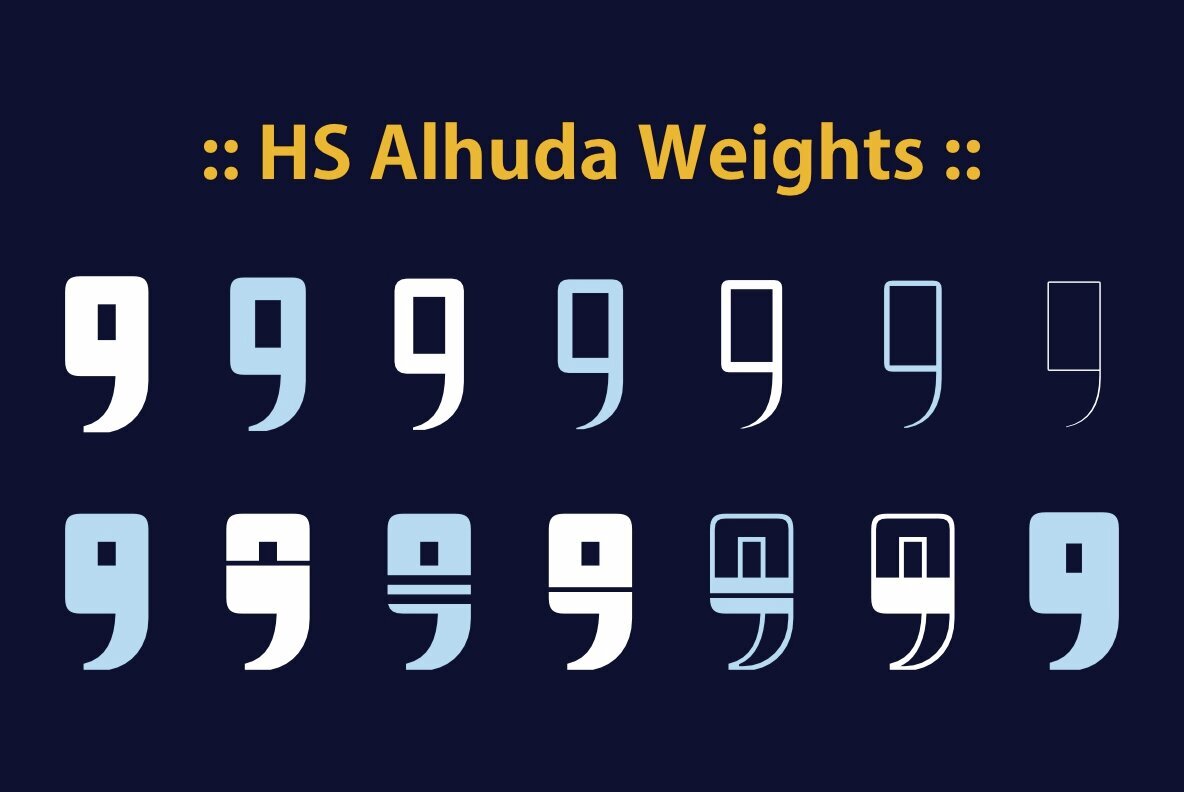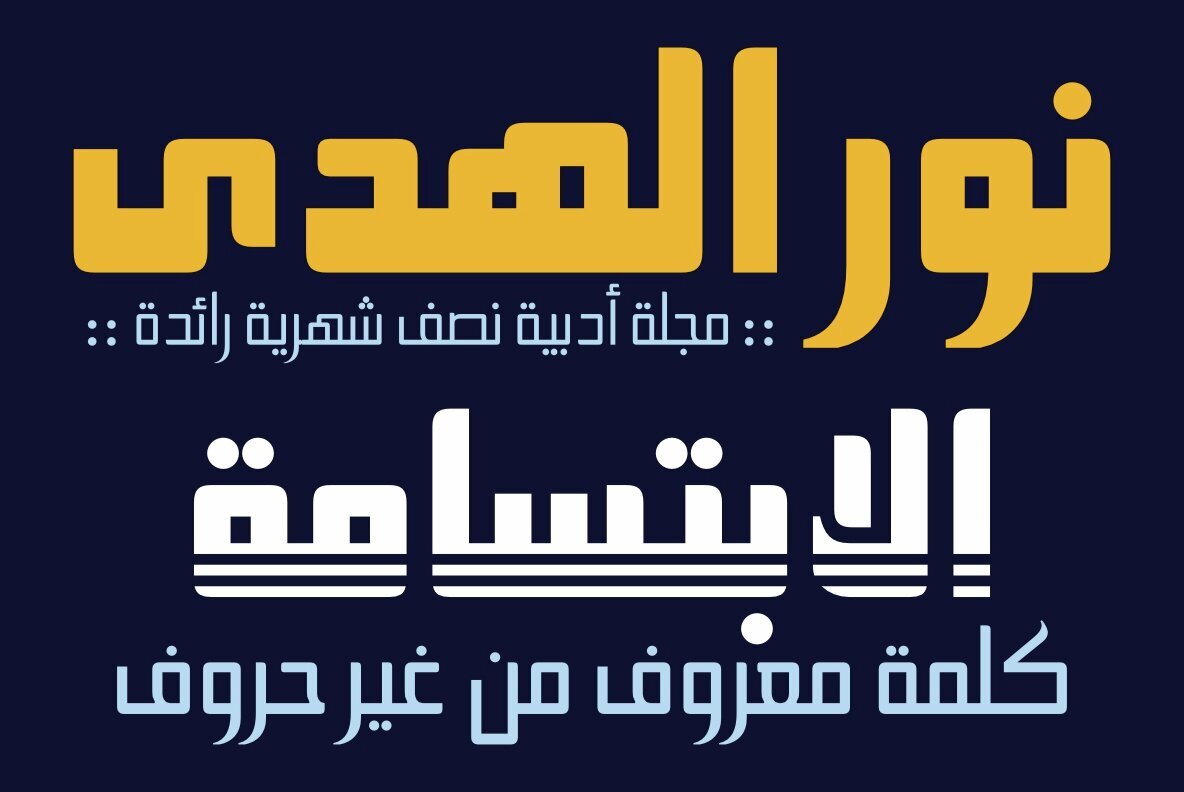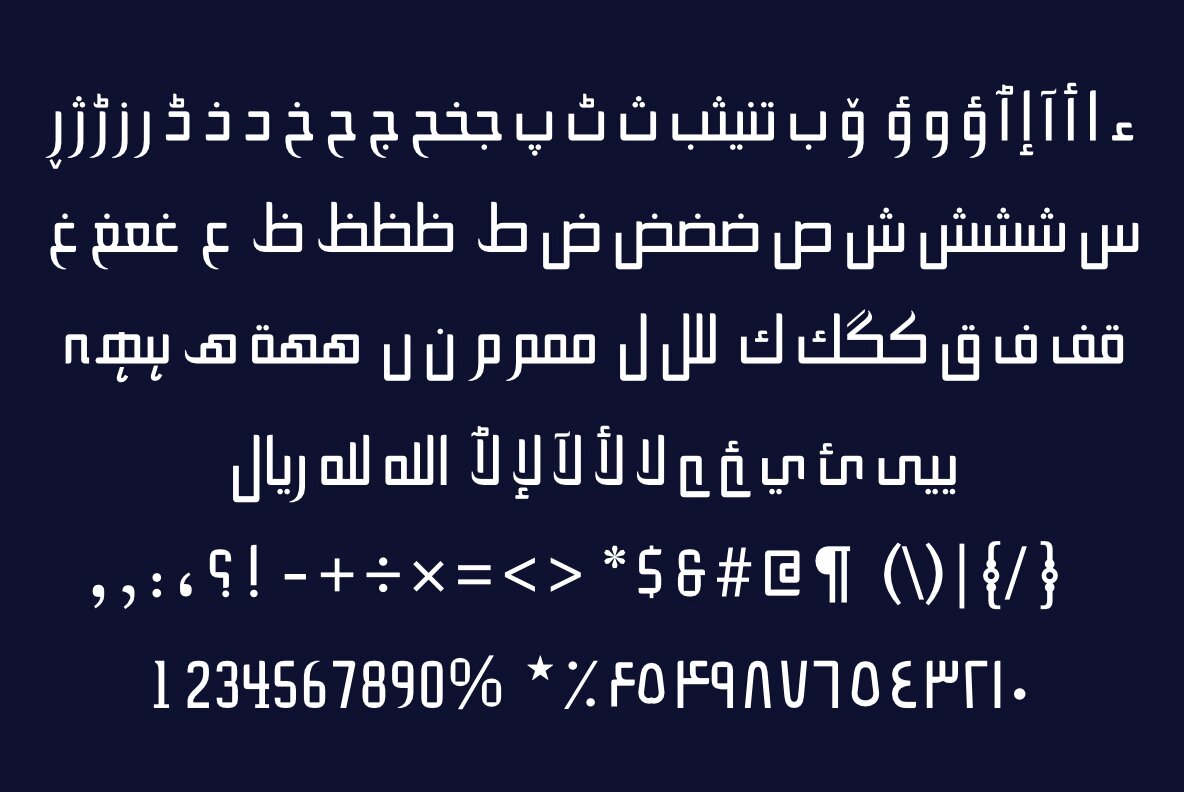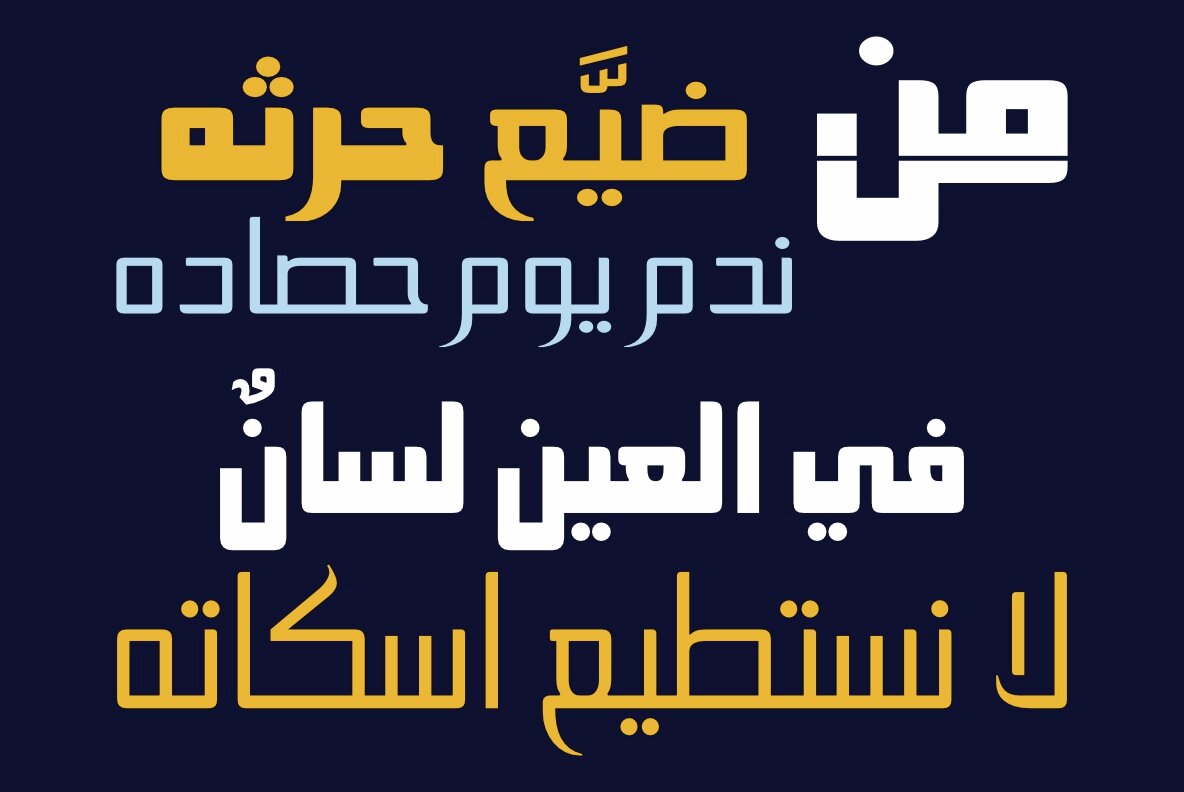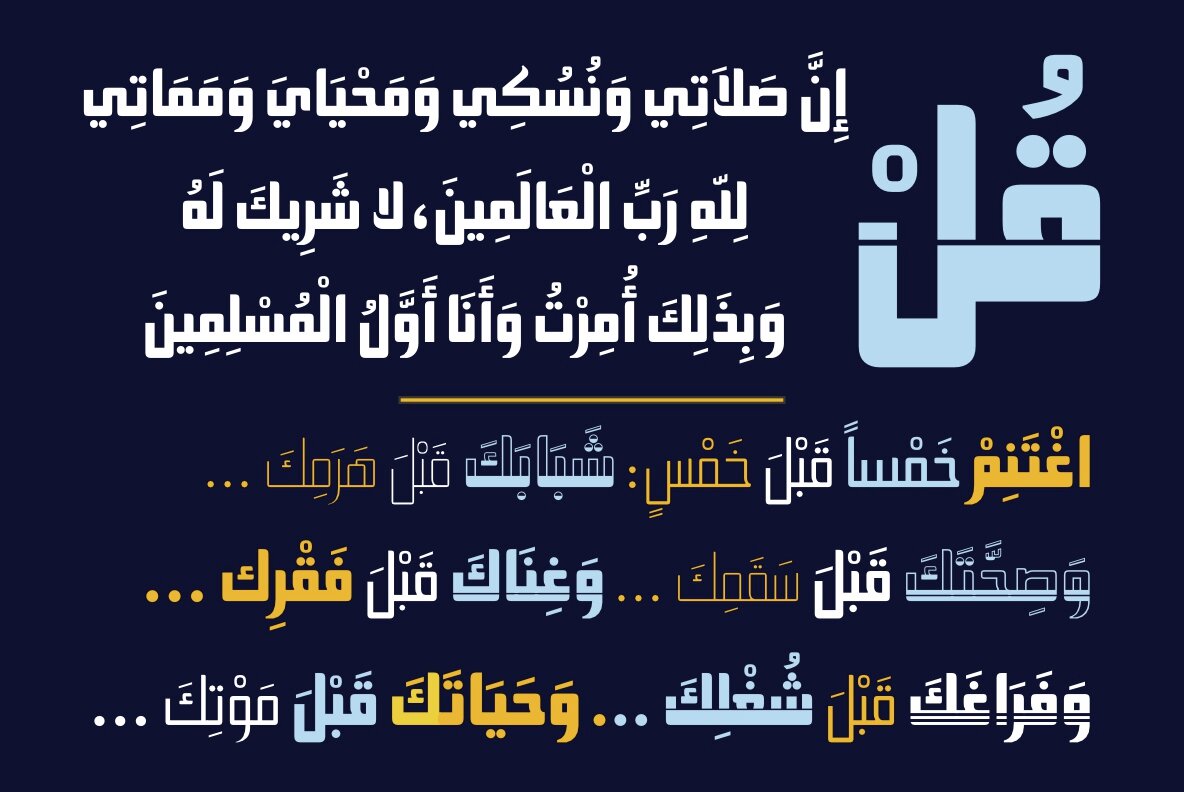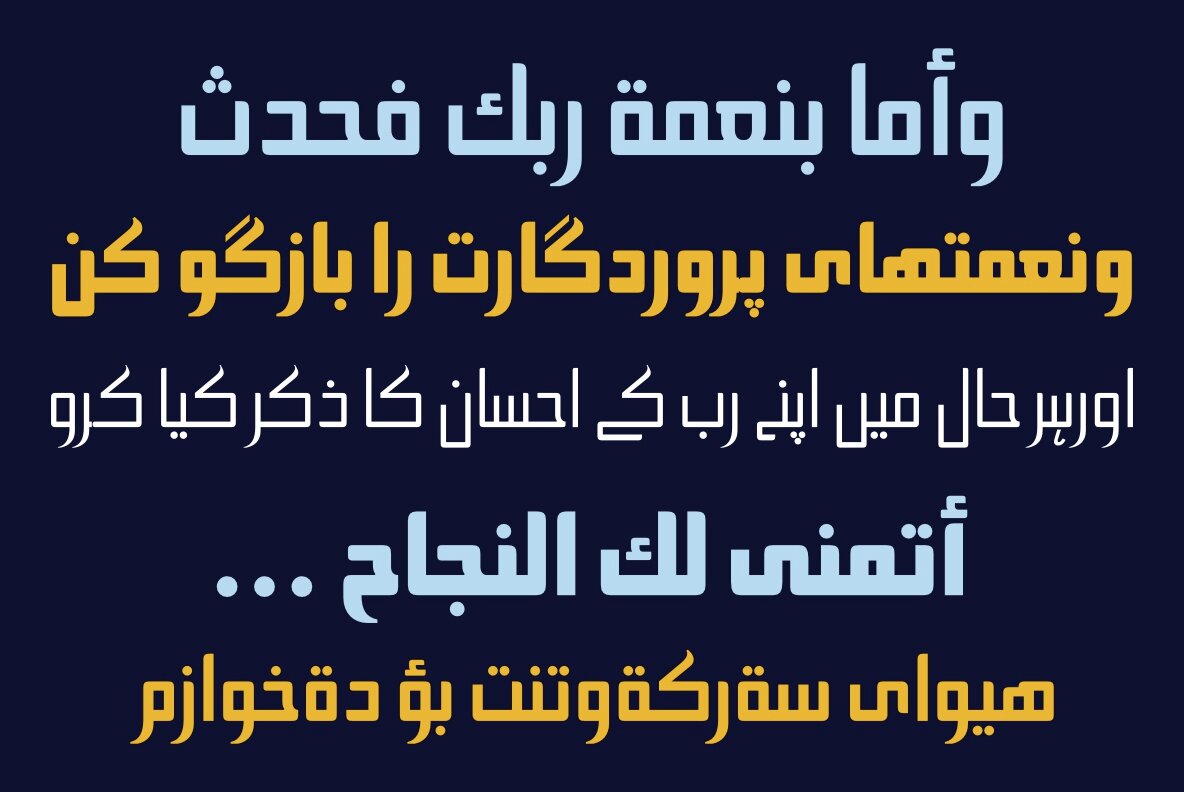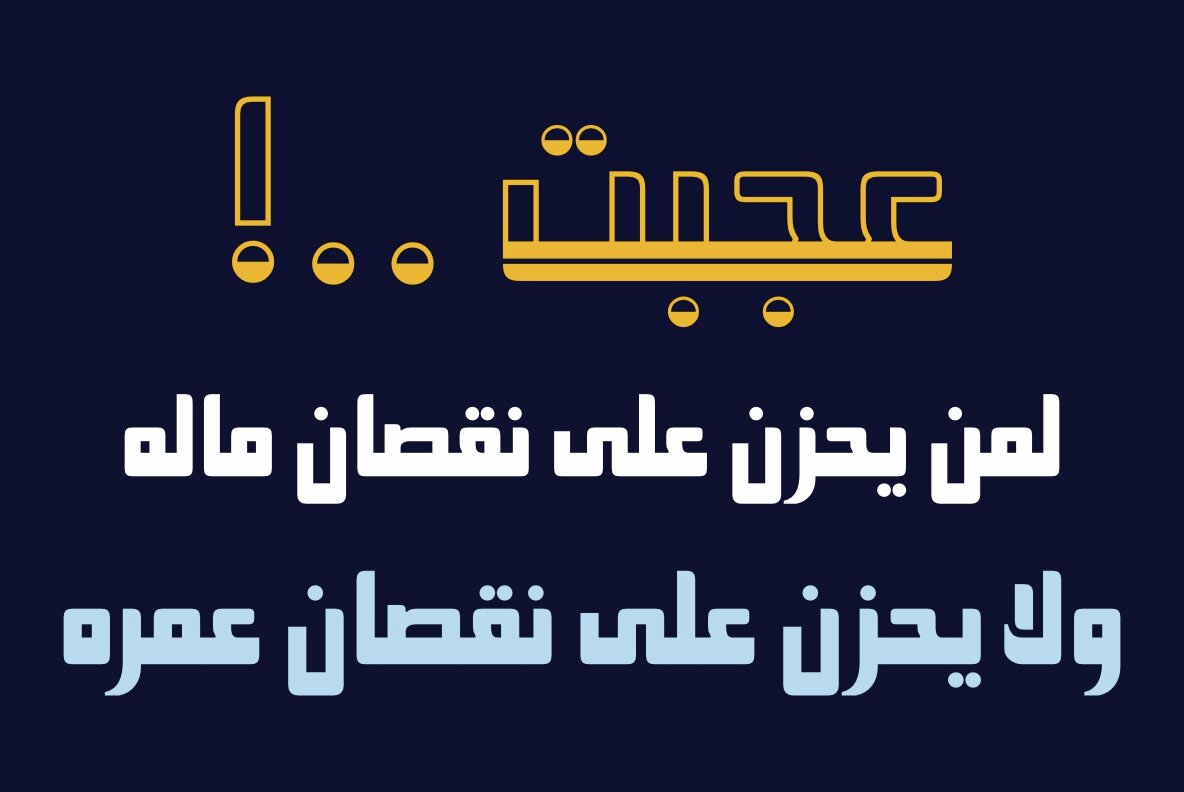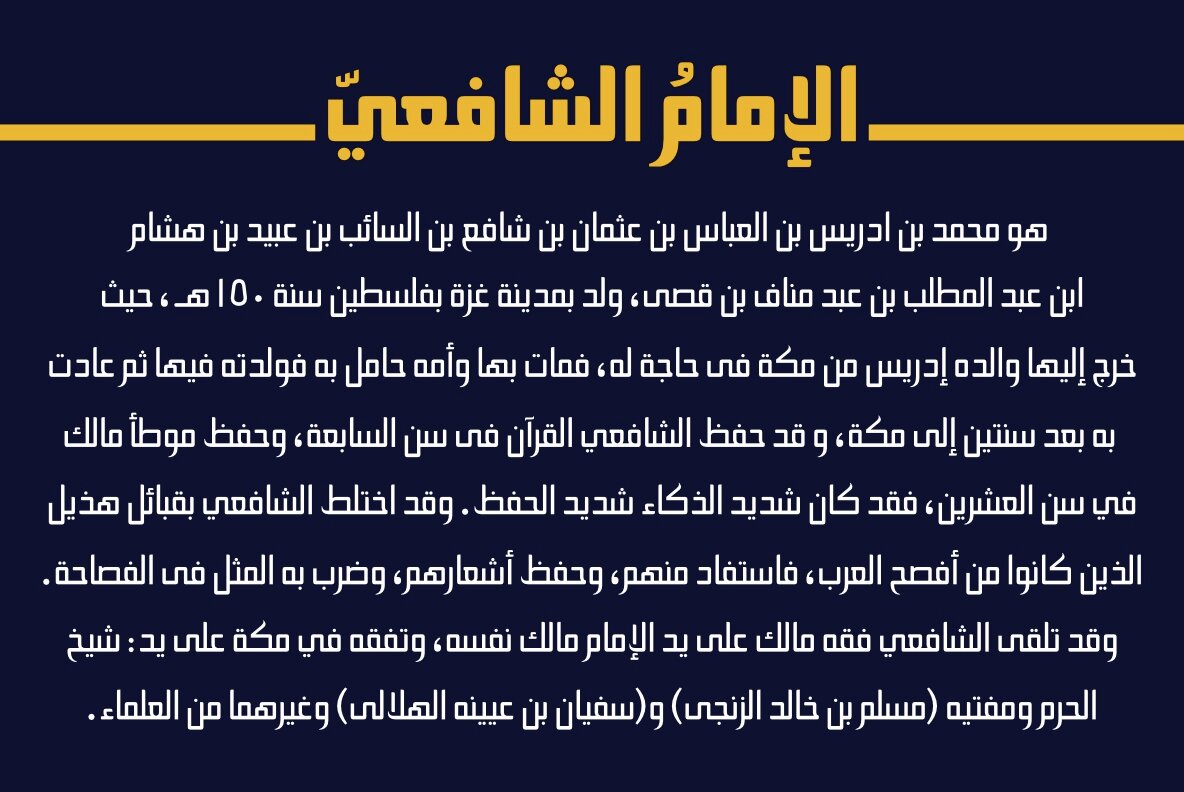
HS Alhuda Font
HS Alhuda is a display typeface designed for titles and graphic projects, supporting Arabic, Persian, Urdu, and Kurdish. Inspired by modern Kufi style, it features a blend of sharp and curved lines, creating a beautiful appearance with a wonderful geometric structure. The sharp endings at the bottom of characters add an aesthetic touch. The typeface comes in 14 weights, ranging from hairline to heavy. In addition to the eight primary weights, there are six additional weights designed specifically for headlines, where the baseline parts are thicker than the vertical parts. One of these weights has a regular form, while the others feature a stencil form in the middle, offering a variety of styles. HS Alhuda, with its diverse range of weights, aims to be a significant contribution to Arabic typography.